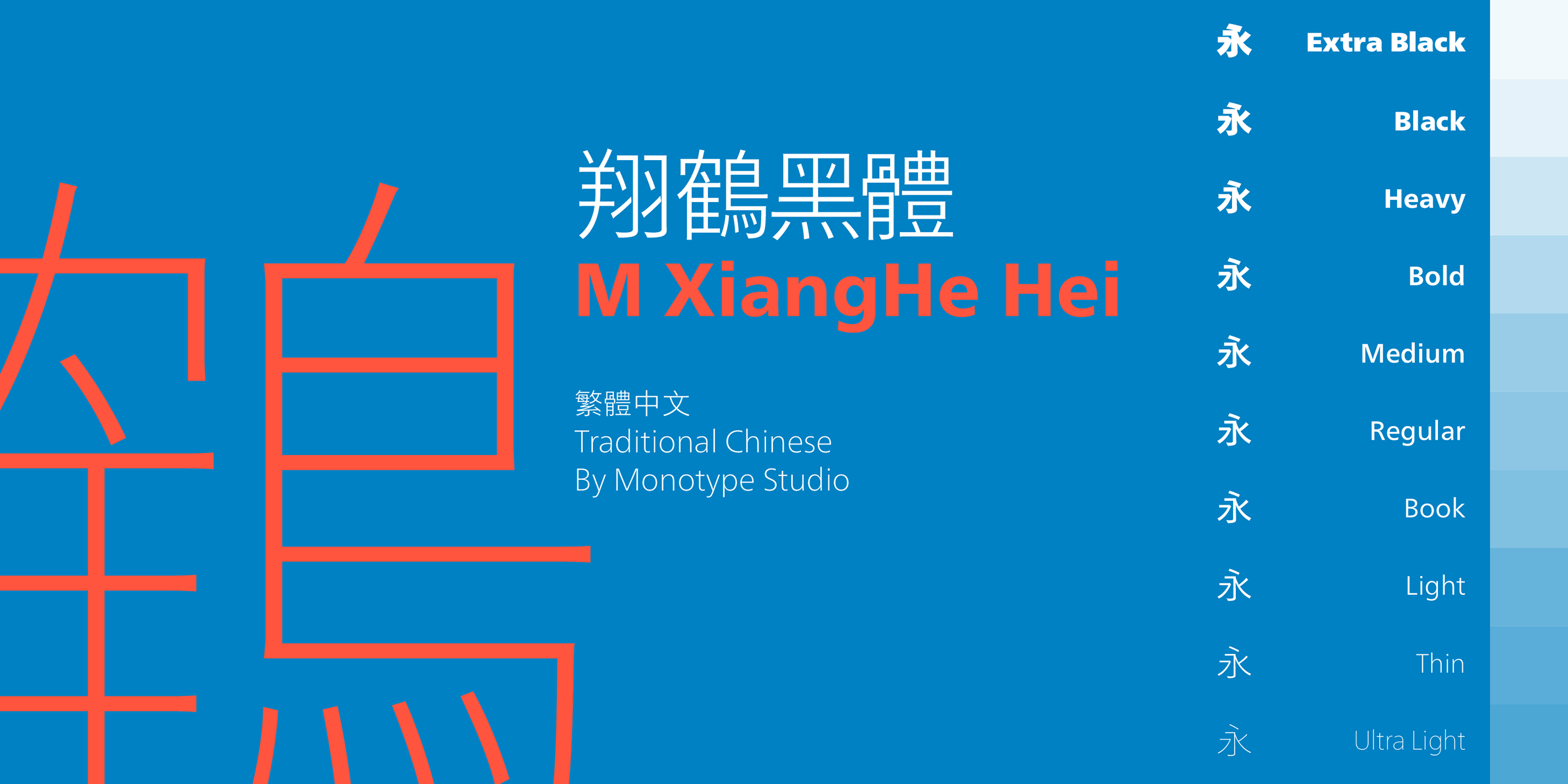
Elevate your design projects with M XiangHe Hei TC Font Free Download, a sophisticated sans-serif typeface that seamlessly blends traditional Chinese brush strokes with contemporary letterforms. Designed by Monotype Studio, this font family offers a harmonious balance between heritage and modernity, making it ideal for global branding, editorial design, and digital interfaces.
M XiangHe Hei TC Font features clean lines and balanced proportions, ensuring excellent readability across various mediums. Its versatility allows it to adapt to different design contexts, from corporate communications to creative projects, while maintaining a consistent and professional appearance.